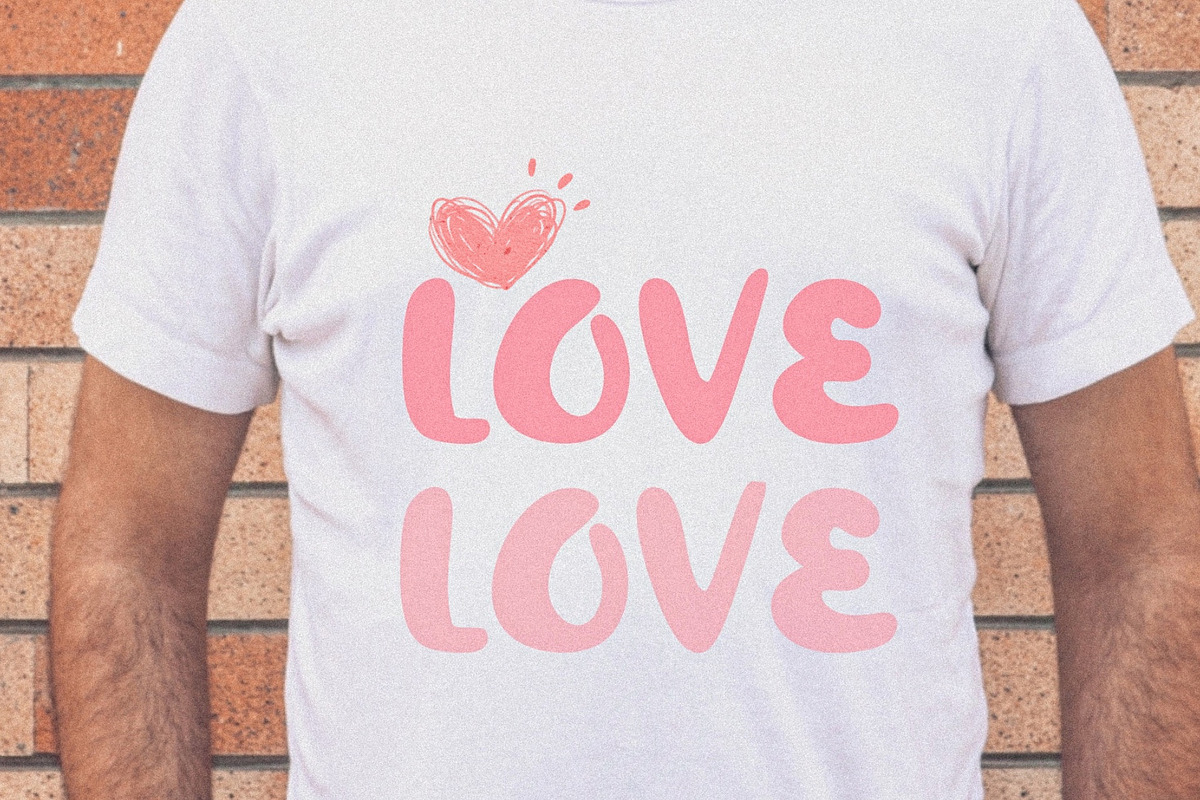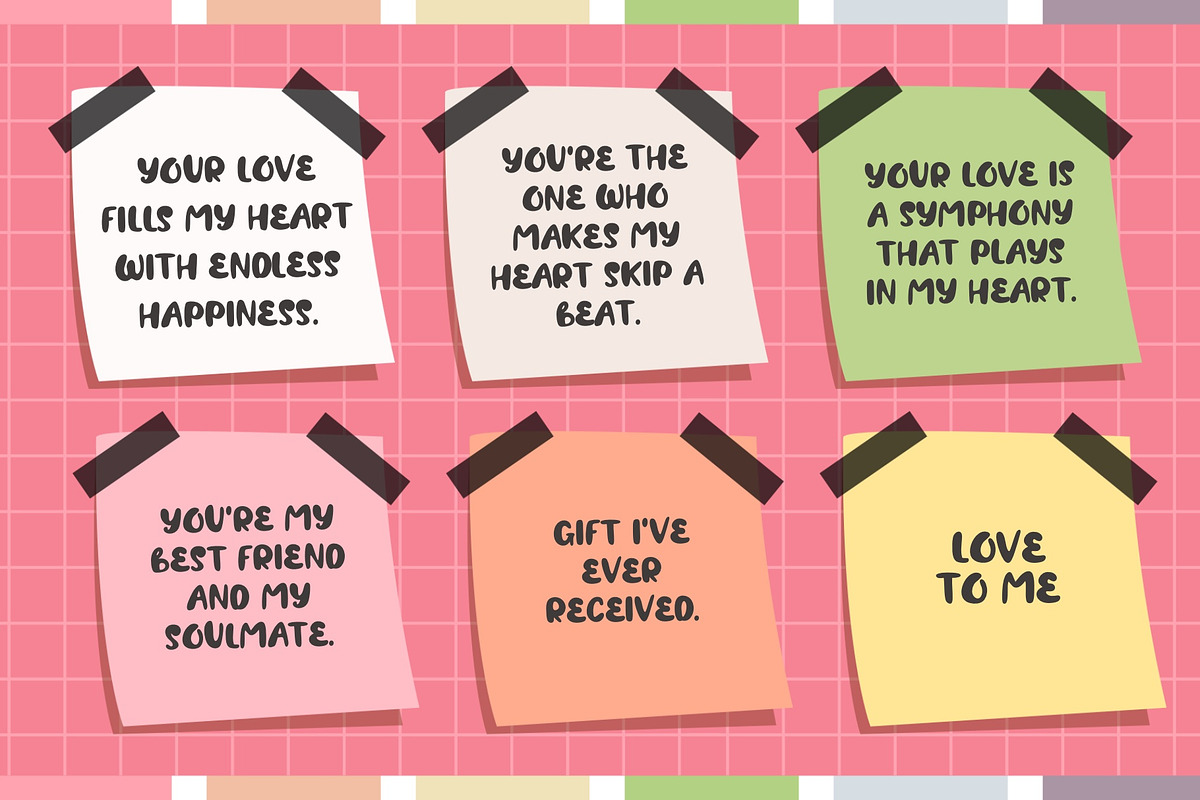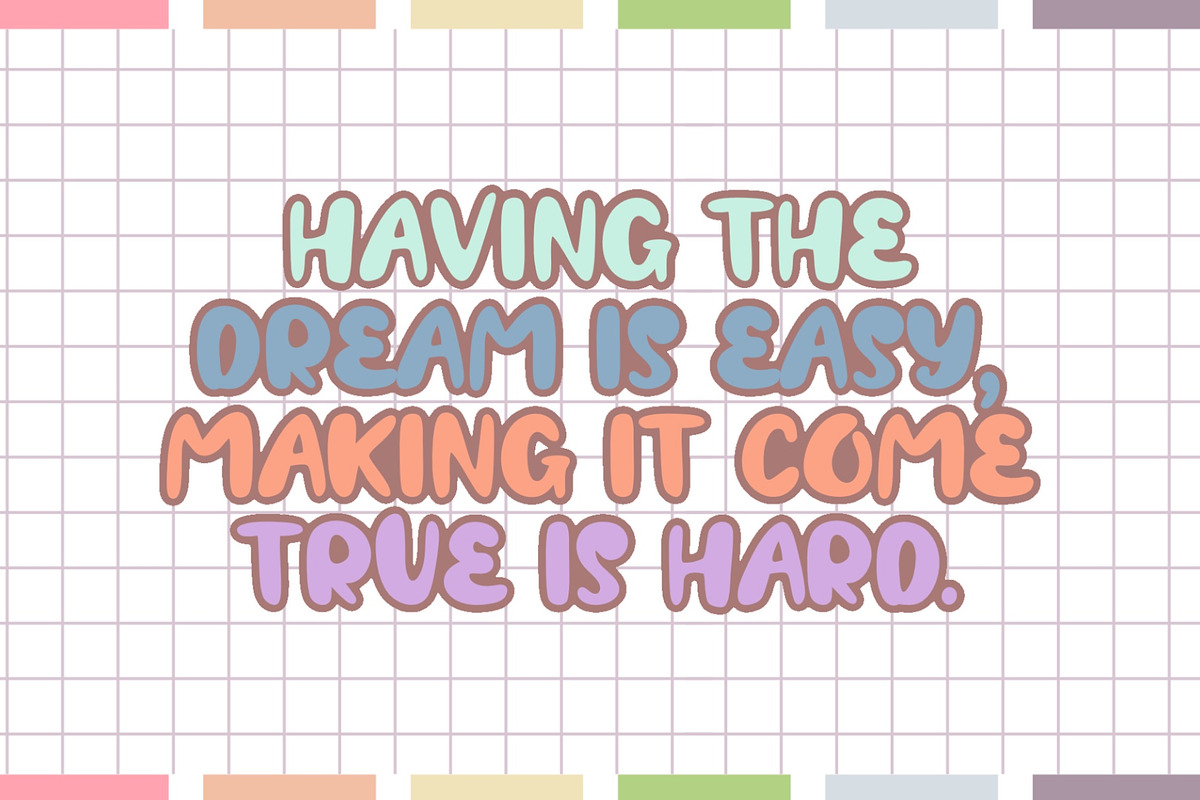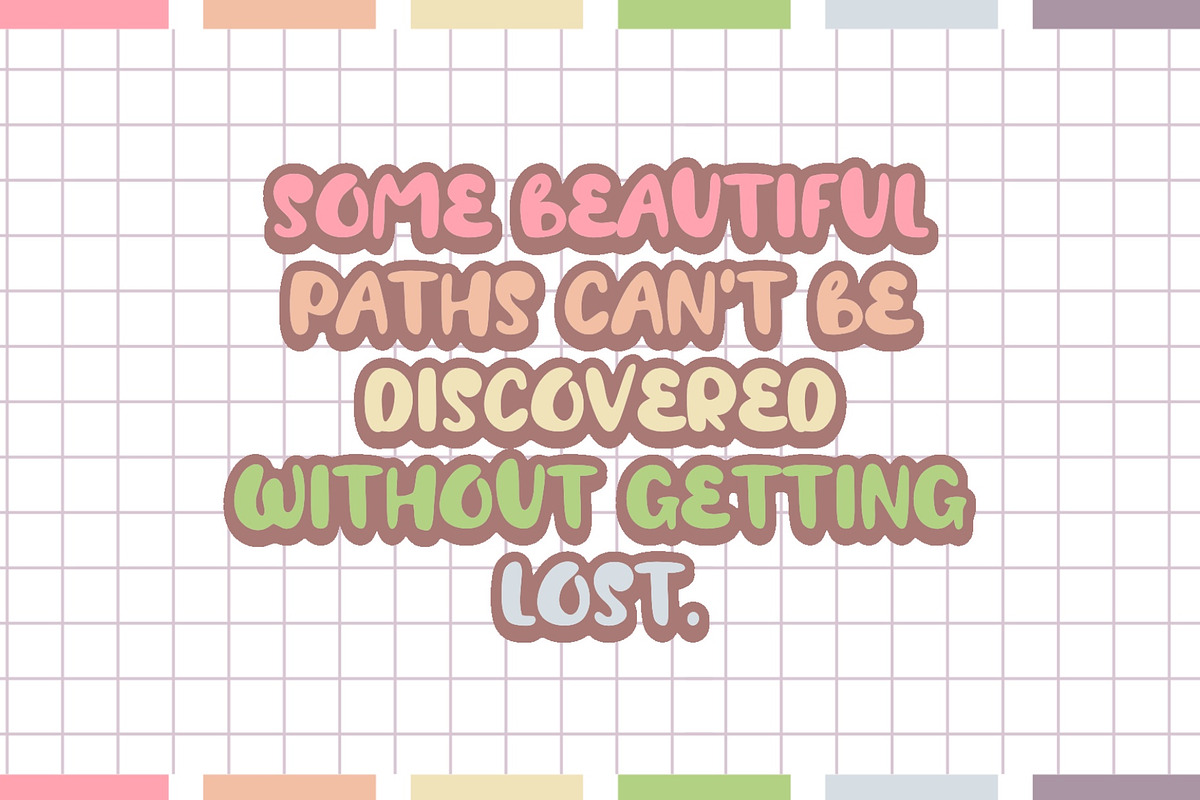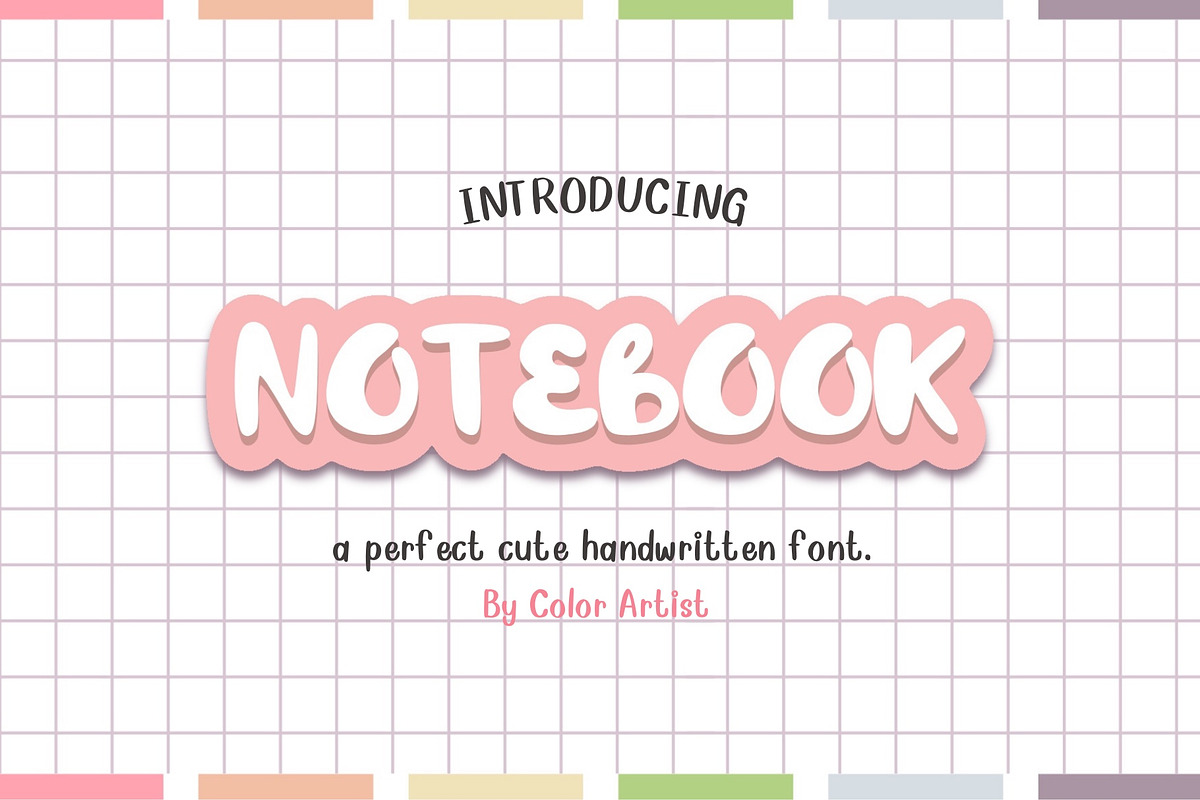
Notebook Font
Introducing the Notebook Font, a charming and nostalgic typeface that will transport you to the world of creativity and imagination. Inspired by the pages of a well-loved notebook, this font adds a touch of handcrafted authenticity to your designs. Whether you're journaling your thoughts, designing scrapbooks, or creating vintage-inspired posters, the Notebook Font will infuse your projects with a unique and artistic flair. Its versatile style allows it to be used for various design applications, from rustic and vintage to modern and playful. Unlock the magic of the Notebook Font and let your creativity flow freely on the pages of your designs. Get ready to capture hearts and evoke feelings of nostalgia with this enchanting typeface.